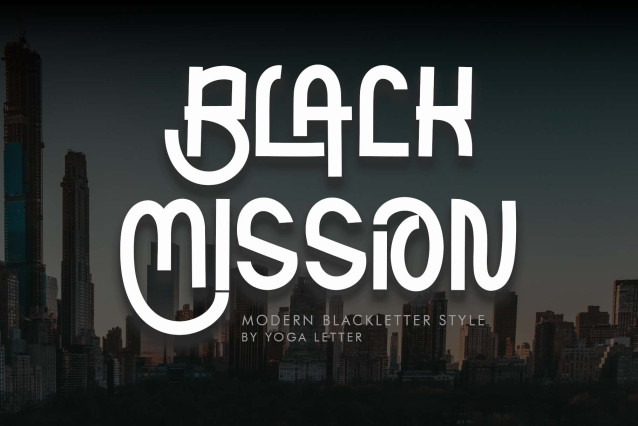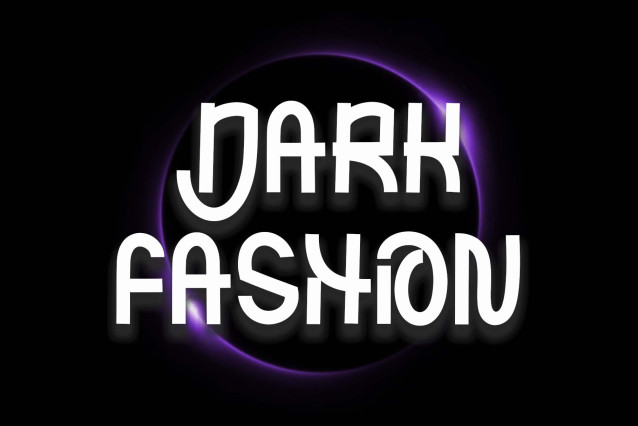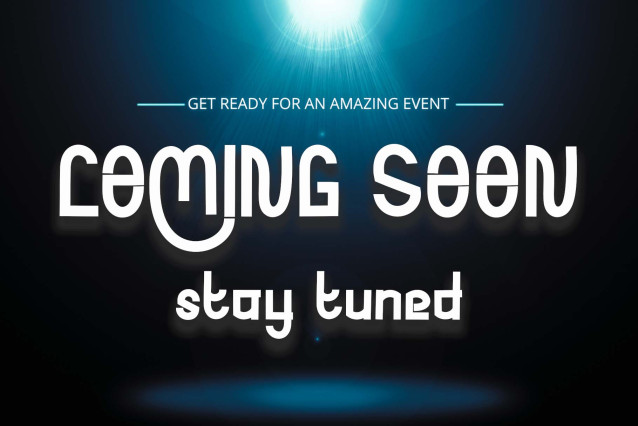
Black Mission Font
Black Mission Font is a modern blackletter-style font that blends gothic elegance with contemporary flair. Its striking letterforms are crafted with strong vertical emphasis, unique terminal curves, and stylized ligatures that add personality and motion. This typeface includes full uppercase and lowercase sets, numerals, punctuation, and multilingual support, giving you flexibility across languages and design styles. Whether you’re designing branding assets, edgy apparel, bold editorial titles, or themed seasonal projects like Halloween or Christmas, Black Mission stands out with its commanding presence and creative energy. It’s perfect for everything from logos and tattoos to social media graphics and expressive product packaging.